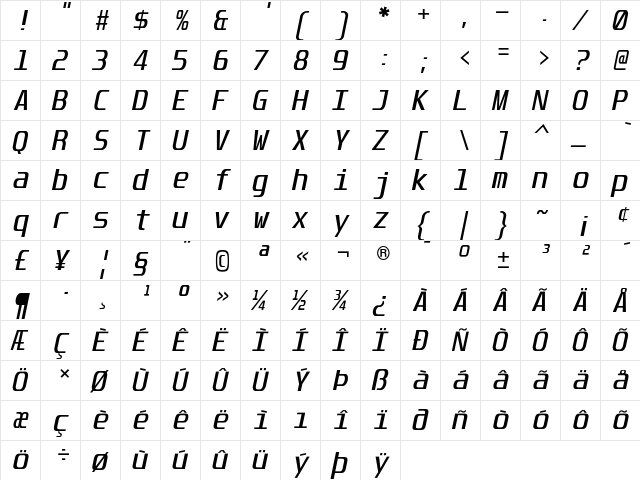
Unispace Italic
Design Context for Unispace Typeface
Unispace is a composed and adaptable typeface that performs quietly and consistently across a wide range of design contexts. The slanted form adds forward momentum and visual energy.
Pro Tip: Try Unispace for annotation and caption copy alongside an upright companion — the contrast in angle creates a dynamic but ordered typographic system.